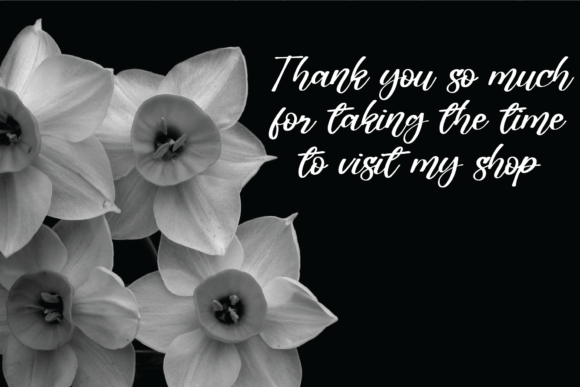
Introduction to Ghost Spider Font
Have you ever been brainstorming for a creative project and suddenly, a spark of inspiration hits you? For designers, this feeling is especially exciting, and it’s exactly what happens when you stumble upon the perfect font. For me, it was the moment I discovered the Ghost Spider Font. Its elegant handwritten style and modern impression made me want to create something beautiful right away.
Ghost Spider Font is more than just a font – it’s a design resource that can elevate your work to the next level. With its varied and interesting hand strokes, it’s perfect for creating stunning designs, from wedding invitations to business cards, logos, and advertisements. Plus, its transparent background makes it easy to work with, and the best part? It’s available for free download, making it a high-quality design asset that’s accessible to everyone.
Key Features of Ghost Spider Font
- Unique, hand-drawn design with a creative, whimsical feel perfect for various projects, including children’s books and comics.
- Features a transparent background, making it ideal for use over images or other design elements.
Honest Review: Ghost Spider Font
I recently stumbled upon the Ghost Spider Font and was excited to dive in and see what it had to offer. As a designer, I’m always on the lookout for high-quality design resources to elevate my creative projects.
- ✨ Unique and modern design aesthetic
- ✨ Great for use in digital design, especially with a transparent background
- ⚠️ Limited character set, which may not be suitable for lengthy text
- ⚠️ Not as versatile as some other fonts, may not be suitable for a wide range of design projects
Overall, I’d say the Ghost Spider Font is a solid addition to any designer’s toolkit. While it may have some limitations, its unique design aesthetic and high-quality construction make it a great choice for digital design projects. Just be mindful of its limitations and use it accordingly.
Tips for Getting the Most Out of the Ghost Spider Font
Use the Ghost Spider Font to add a touch of whimsy and creativity to your design project.
Take advantage of the font’s transparent background to create stunning visual effects.
Combine the Ghost Spider Font with other design resources to create a unique and high-quality design.
The Ghost Spider Font is perfect for:
Creating eye-catching social media graphics.
Designing creative project materials, such as posters and flyers.
Adding a touch of personality to your website or blog.